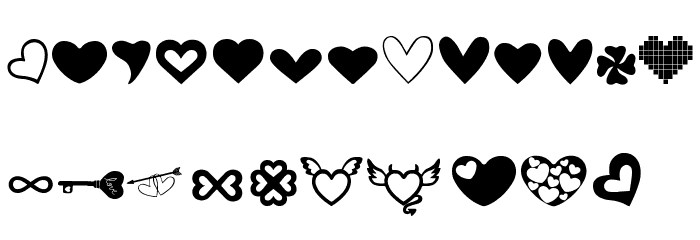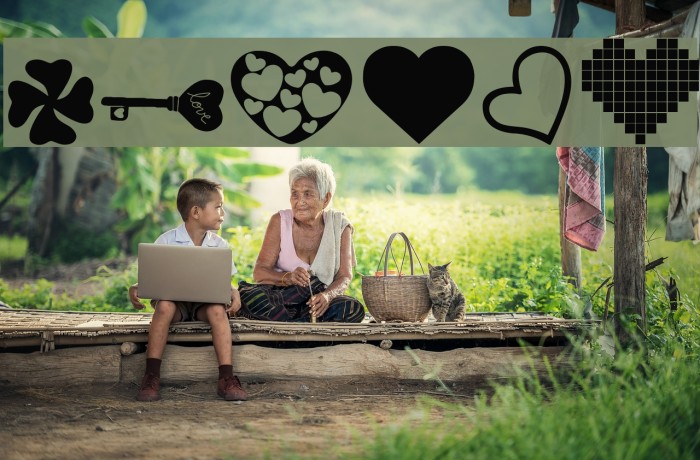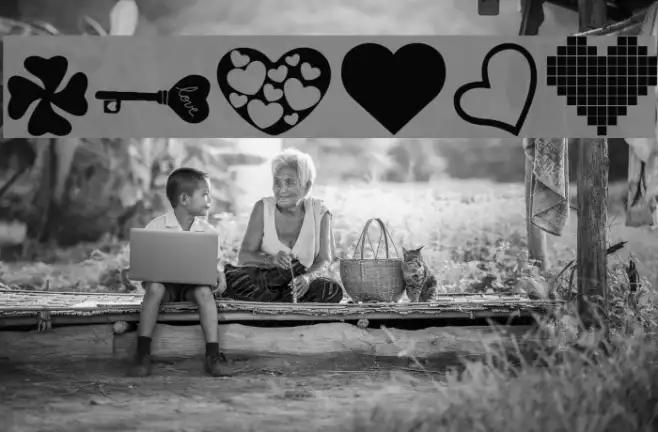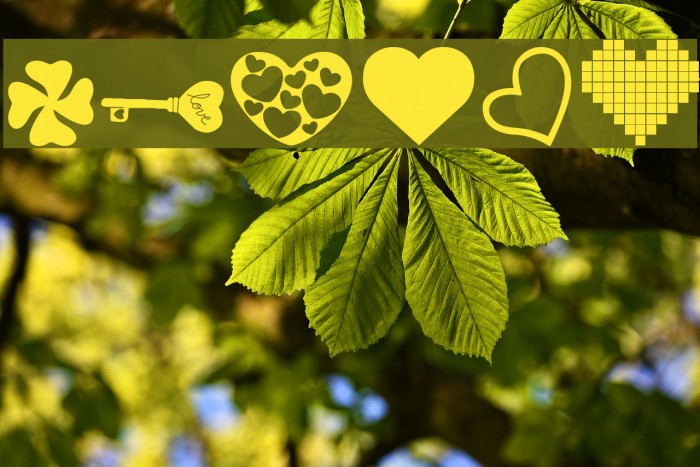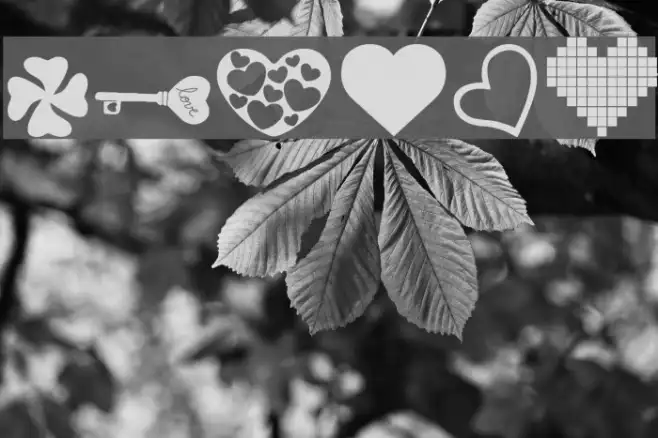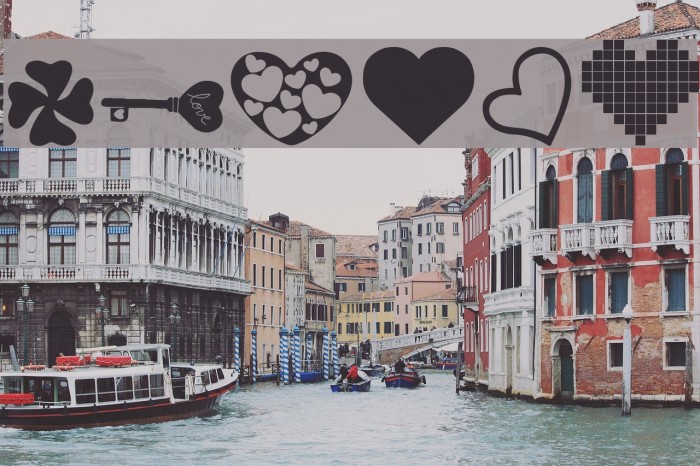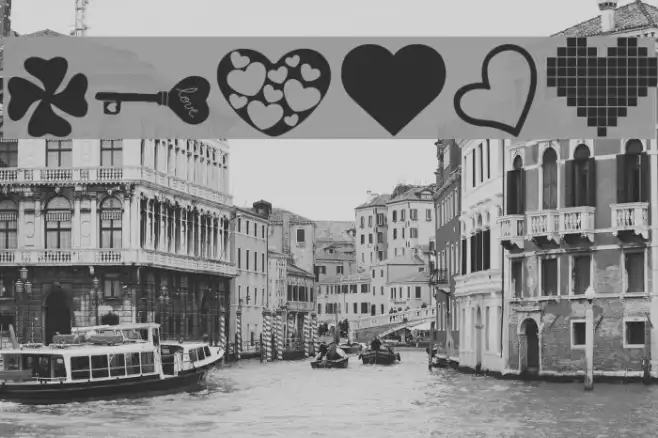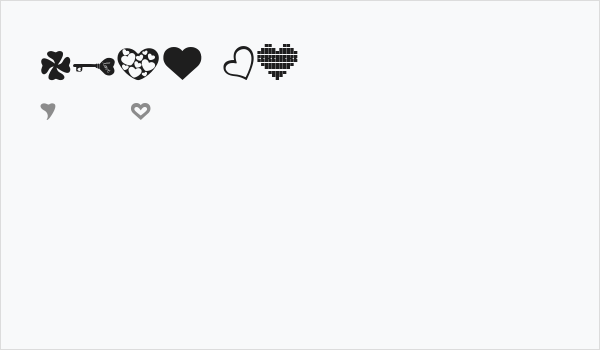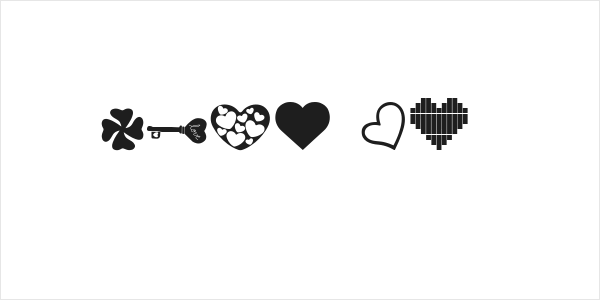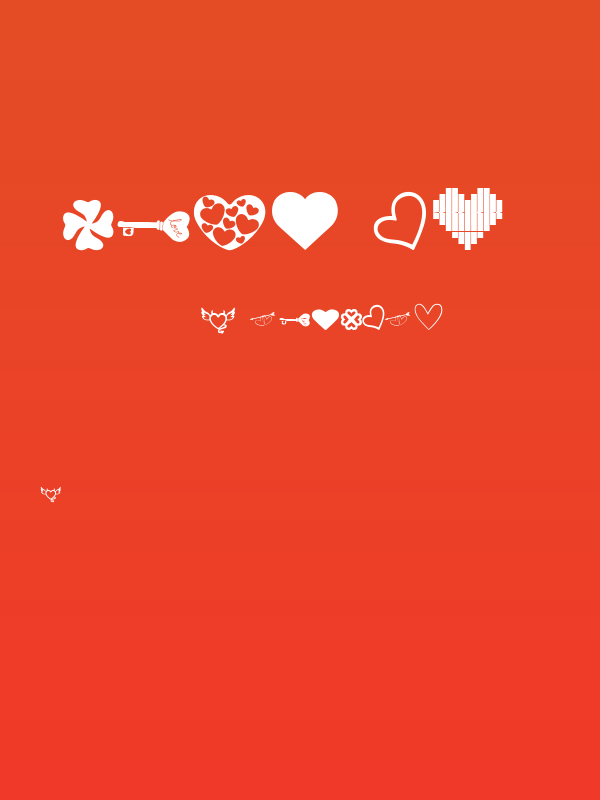
LOVE_AMY Font
LOVE_AMY Description
A decorative dingbat font featuring a variety of heart-themed symbols, including solid, outlined, pixelated, winged, and patterned hearts, as well as keys, arrows, infinity signs, and clover shapes. The glyphs are bold, playful, and highly stylized, with a mix of filled and outlined designs.
| Overall Style | Decorative, Playful, Thematic |
| Use Case | Icons, Decorative elements, Themed graphics |
| Proposed Projects | Valentine's Day cards, romantic invitations, scrapbooking, social media graphics, decorative borders, and playful branding. |